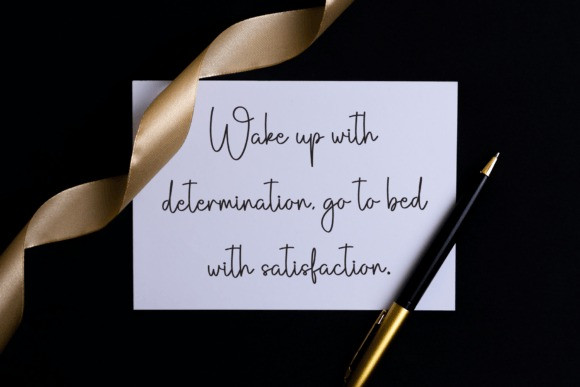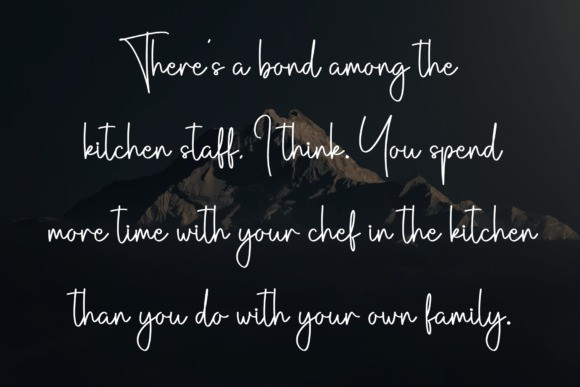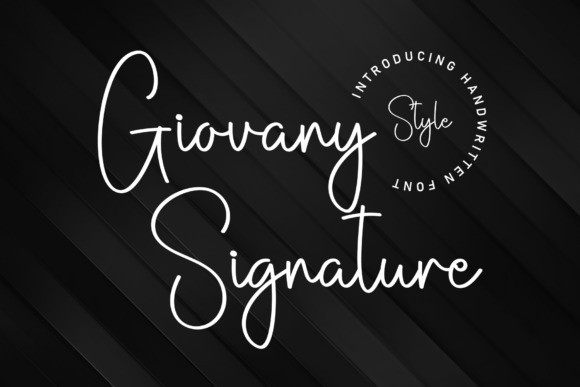
Giovany Signature Font
Giovany Signature Font is an elegant handwriting font that adds a touch of sophistication to your projects. With smooth, flowing strokes, this font captures the essence of a handwritten signature, bringing a personal and stylish feel to any design. Whether you’re creating invitations, logos, or personal branding, Giovany Signature adds a dash of class and personality, making your text stand out with a timeless charm.